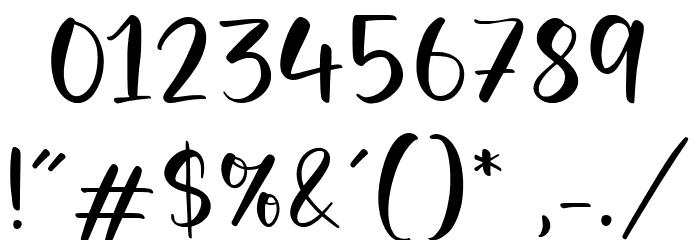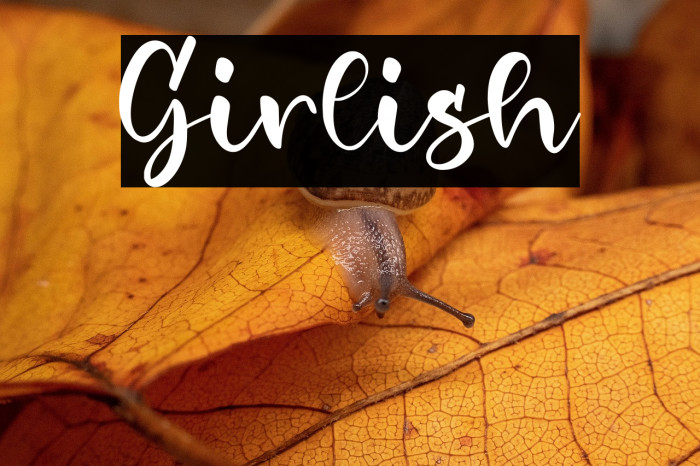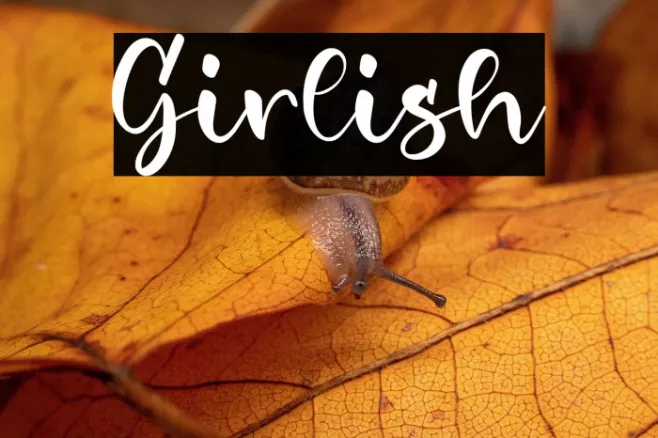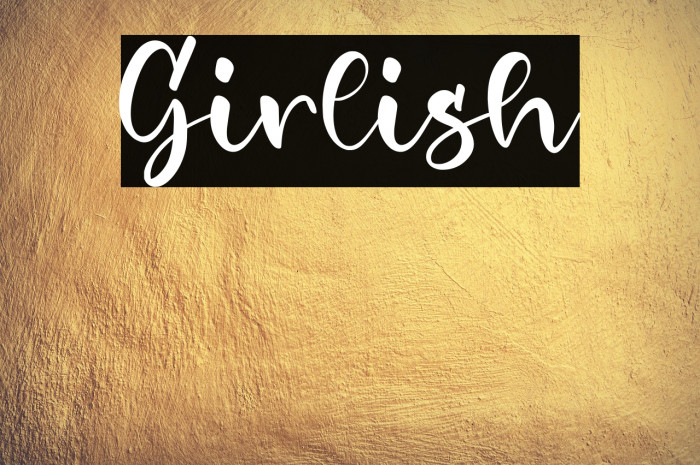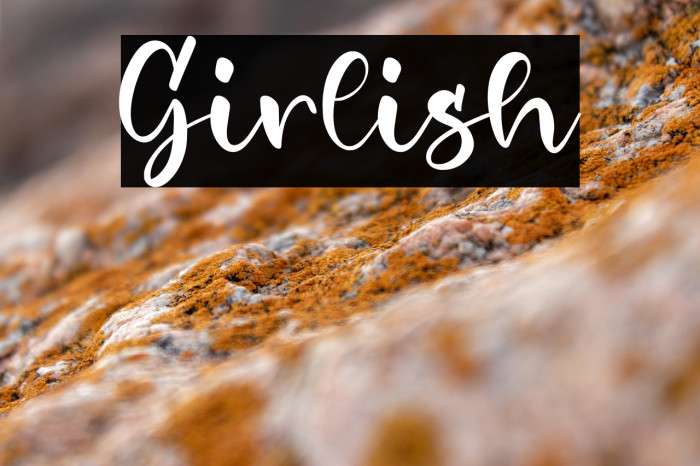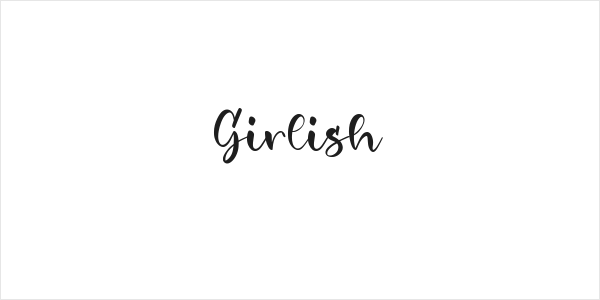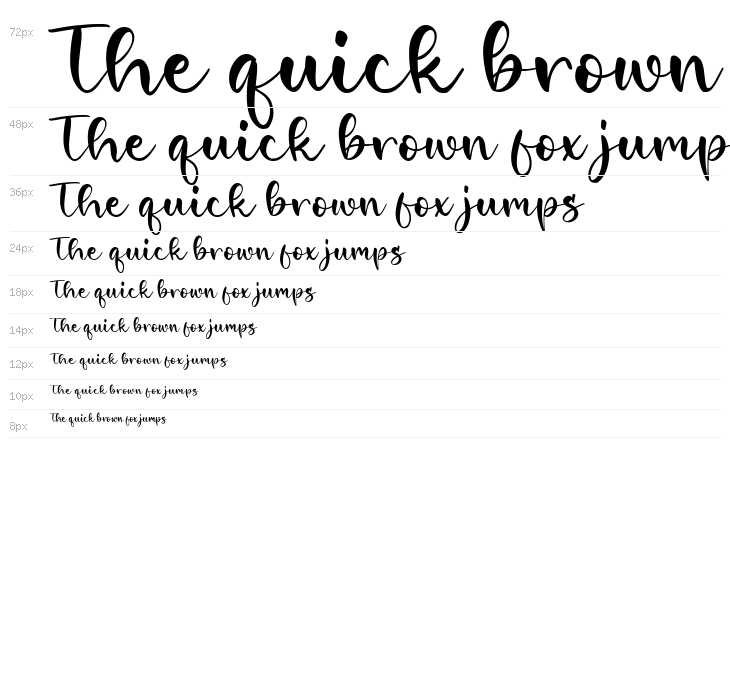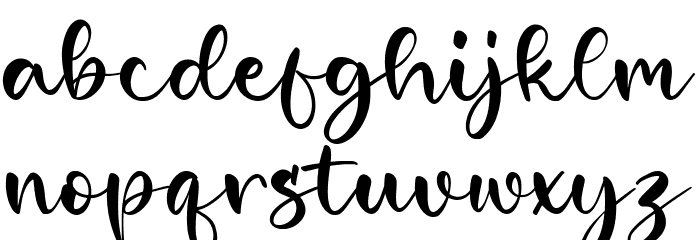
Girlish Font
Girlish Description
This font exudes a playful and whimsical charm, characterized by its flowing, cursive style that mimics natural handwriting. The letters are elegantly connected, creating a sense of fluidity and movement. The strokes are moderately thick, providing a bold presence while maintaining a delicate and feminine touch. The uppercase letters are slightly more structured, offering a nice contrast to the more freeform lowercase letters. The numerals and special characters maintain the same playful aesthetic, ensuring consistency across all glyphs. This font is perfect for projects that require a personal, friendly, and approachable feel.